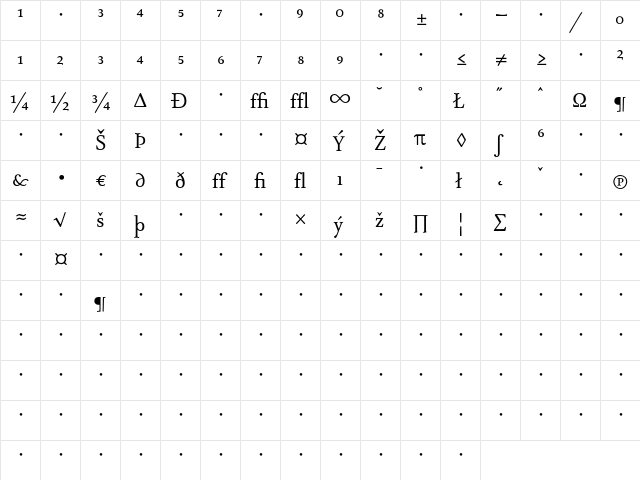
AtmaSerifExp-BookRoman Regular
Design Context for AtmaSerifExp-BookRoman Typeface
AtmaSerifExp-BookRoman brings classic typographic sensibility to the table — its serifs and measured letterforms reflect centuries of print heritage.
Pro Tip: Set AtmaSerifExp-BookRoman with slightly loose tracking in headlines to let each letterform's detail read clearly at display sizes.